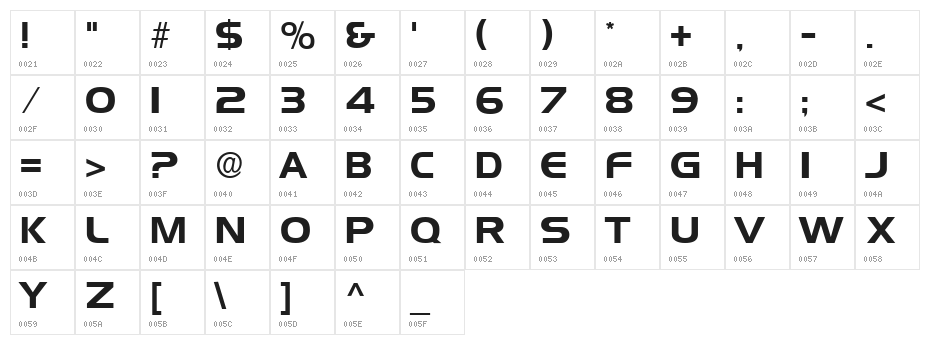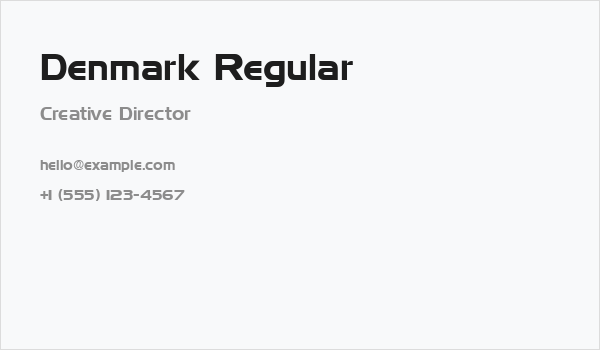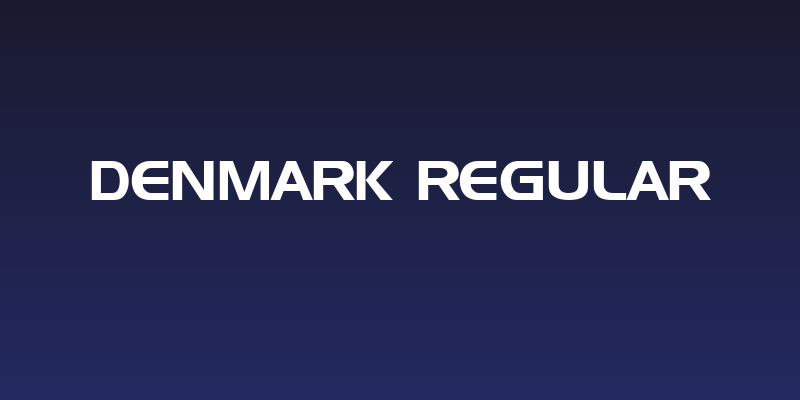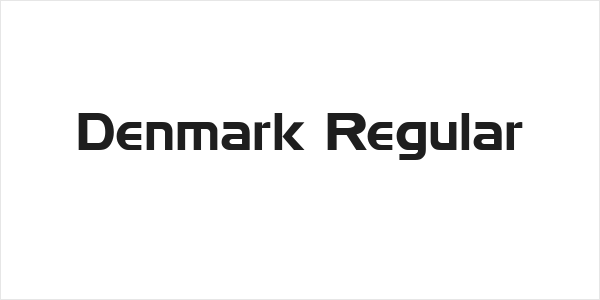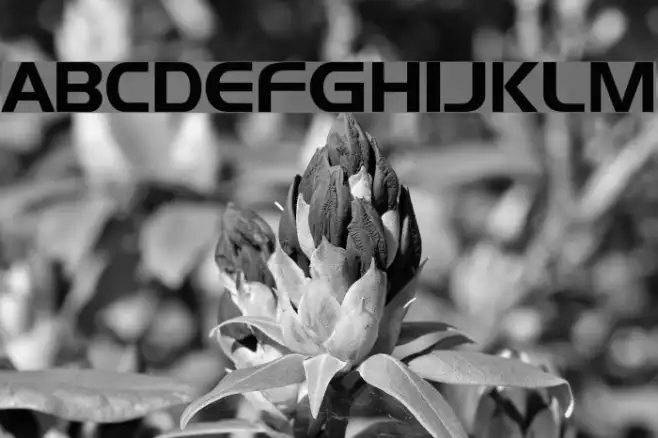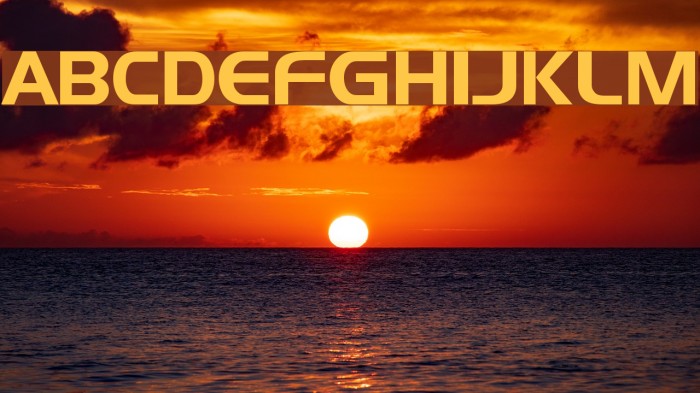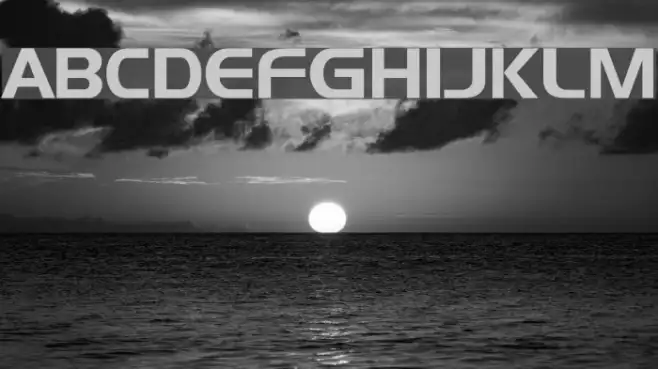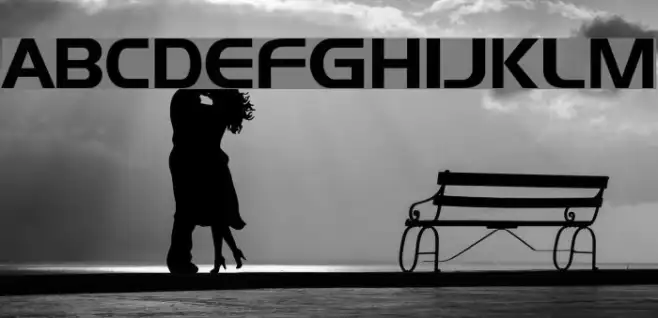
Denmark Regular Font
Denmark Regular Description
This typeface exhibits a clean and modern aesthetic with a geometric structure. The characters are well-balanced with a consistent stroke width, giving it a uniform appearance. The uppercase letters are bold and assertive, while the lowercase letters maintain a smooth and approachable look. The numerals are clear and easy to read, making them suitable for various applications. Special characters are designed with the same precision, ensuring a cohesive look across all glyphs. This font is versatile, suitable for both digital and print media, and can be used in a wide range of design projects.
| Use Case | Headlines, Body text, Logos |
| Proposed Projects | Ideal for branding, advertising, web design, and editorial layouts. |